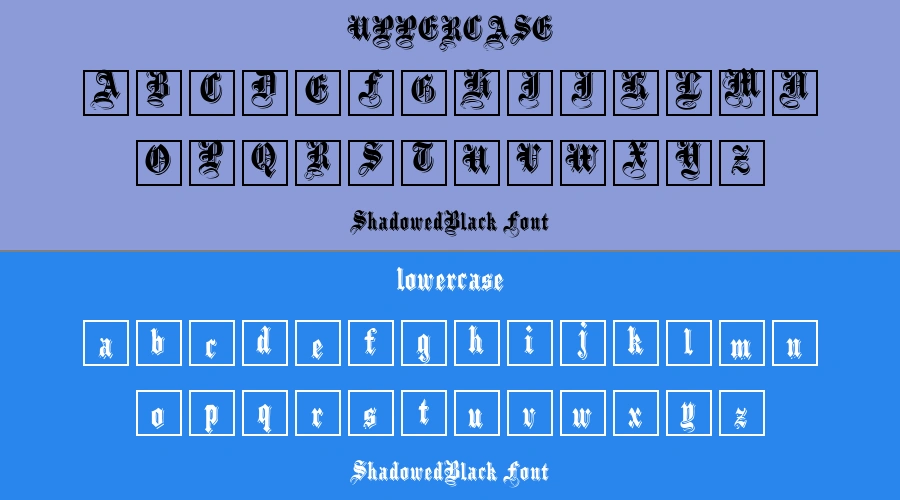
About ShadowedBlack Font
ShadowedBlack Normal Font embodies typographic excellence through its masterful combination of precise alignment and clarity. Created for corporate communications, this typeface delivers exceptional originality and quality certification across all applications. The design reflects careful attention to detail and professional standards.
Advanced capabilities include distinctive bracketed serifs and versatile initial forms, giving designers creative control. When used in research articles, ShadowedBlack Normal Font exhibits remarkable large format impact. The harmonious balance between letterfit and creative expression sets this typeface apart.